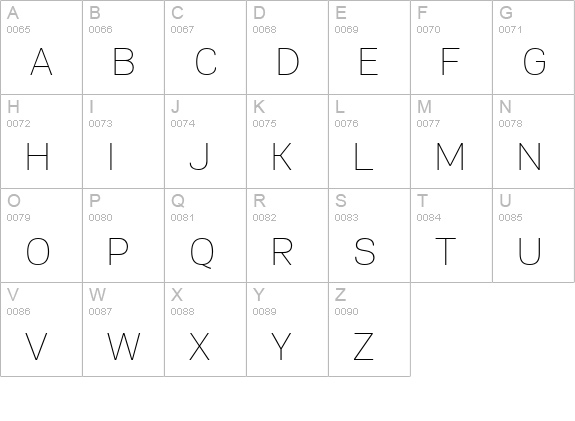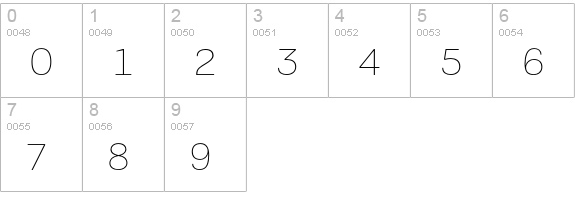
PFEncoreSansPro-ExtraThin is a modern and elegant font that exudes sophistication and finesse. With its delicate and refined strokes, this font is perfect for adding a touch of elegance to any design project. The ExtraThin weight of PFEncoreSansPro showcases a minimalist aesthetic that is both sleek and stylish. What makes PFEncoreSansPro-ExtraThin even more appealing is the fact that it is available for free download at FontsMarket.com. This means that you can easily access this beautiful font and use it in your projects without any cost. Whether you're designing a website, creating a logo, or working on a print project, PFEncoreSansPro-ExtraThin is a versatile font that will elevate your design to the next level. Don't miss out on the opportunity to enhance your designs with the beauty and sophistication of PFEncoreSansPro-ExtraThin. Download this stunning font for free at FontsMarket.com and start creating stunning visuals that will leave a lasting impression.